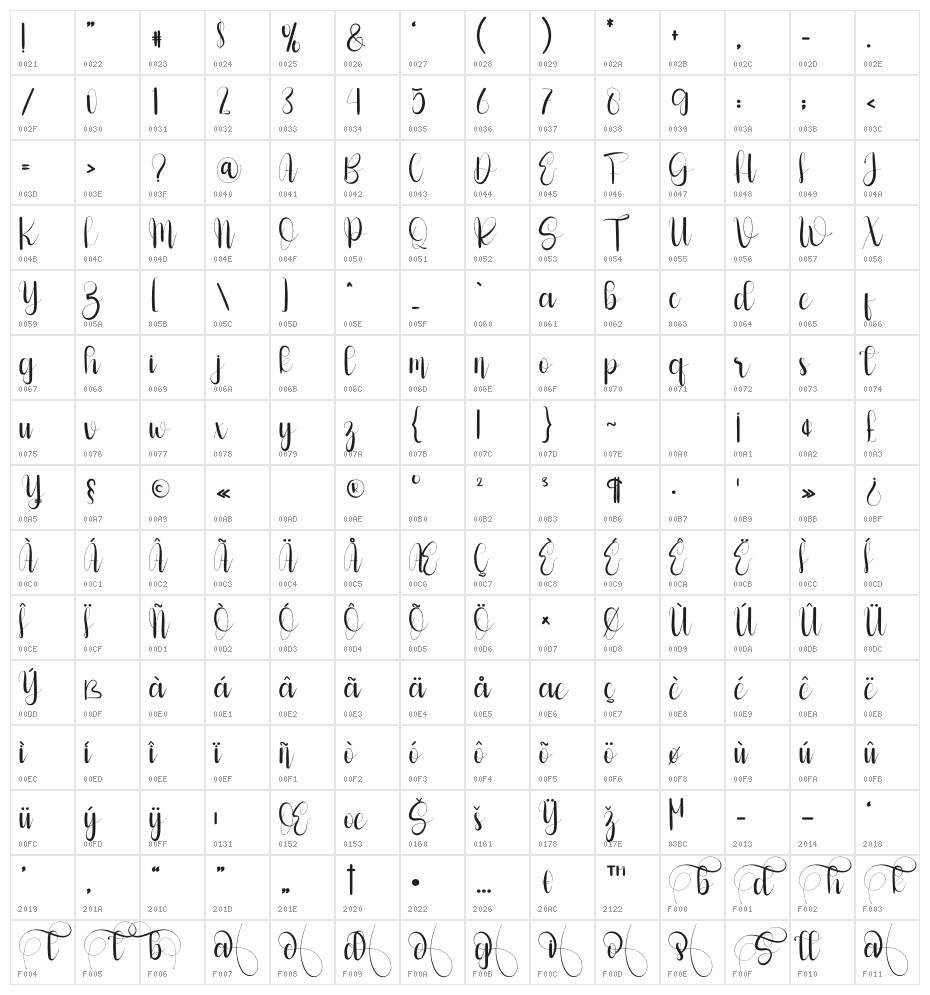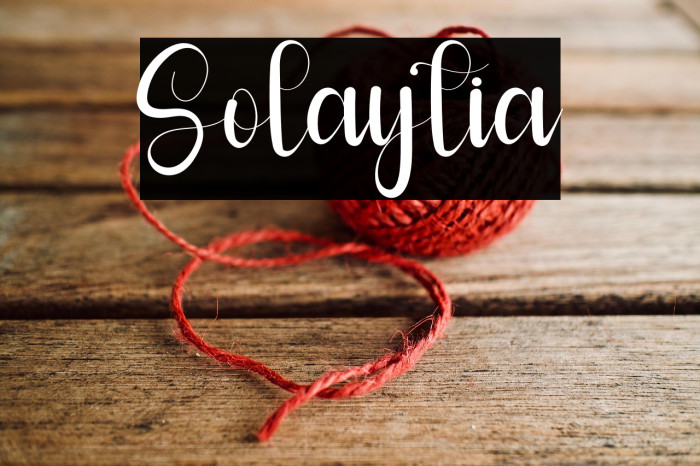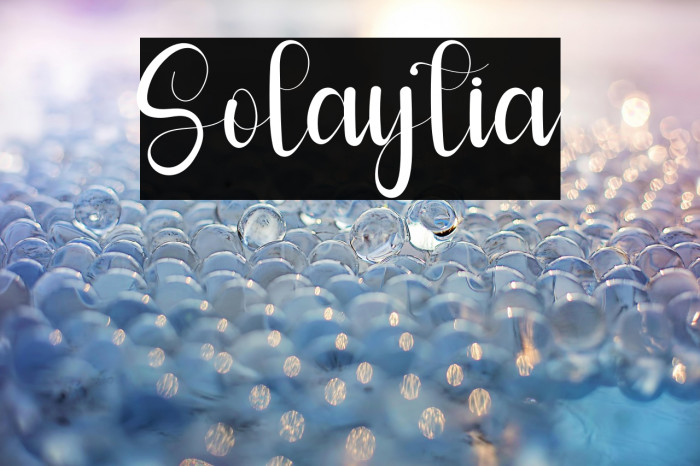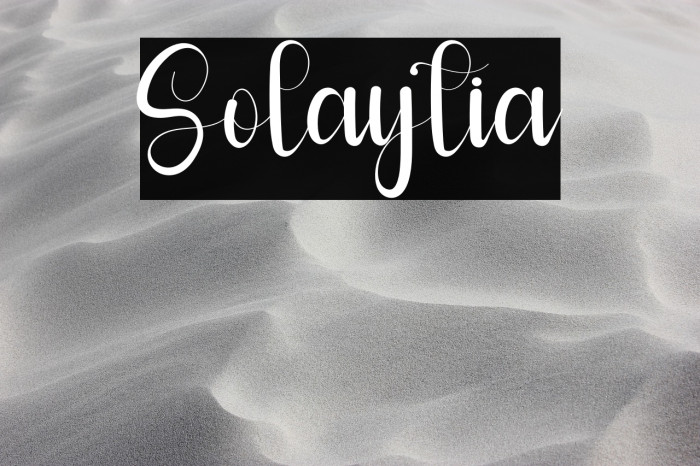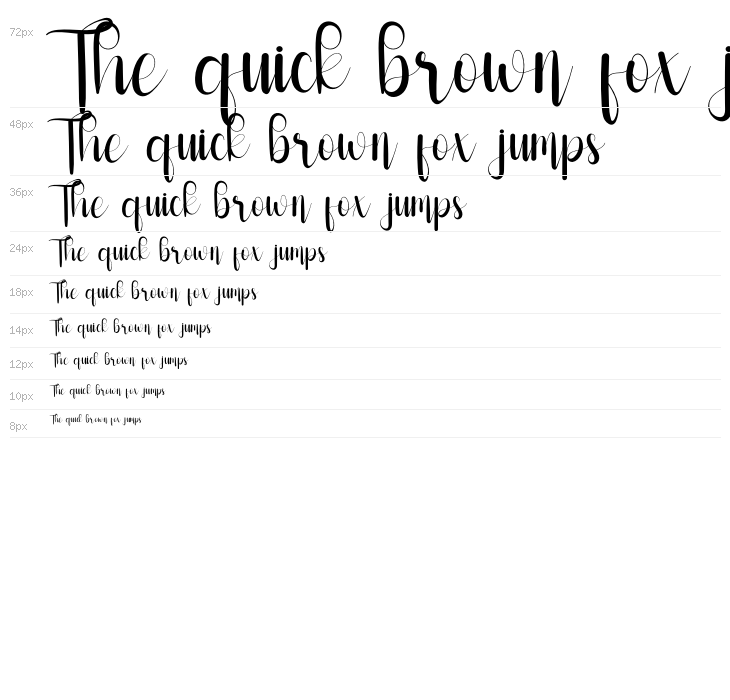
Solaytia Font
Solaytia Description
This font features an elegant and flowing script style, characterized by its graceful curves and loops. The uppercase letters are tall and slender, with a distinctive flair that adds a touch of sophistication. The lowercase letters maintain a consistent flow, enhancing readability while retaining an artistic flair. Numbers are designed with a similar style, ensuring uniformity across the typeface. The special characters blend seamlessly, maintaining the overall aesthetic. This font is perfect for projects that require a touch of elegance and creativity.
| Overall Style | Elegant, Artistic |
| Use Case | Logos, Invitations, Decorative text |
| Proposed Projects | Ideal for wedding invitations, branding, greeting cards, and elegant logos. |